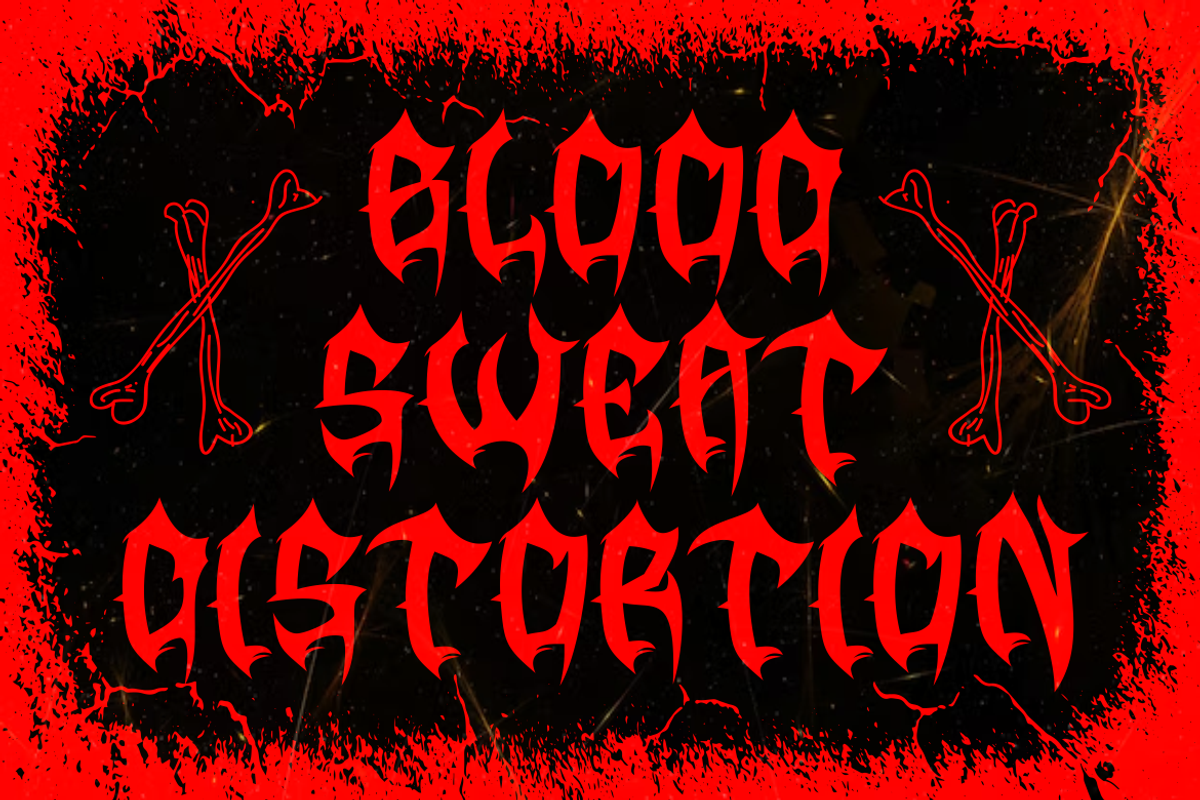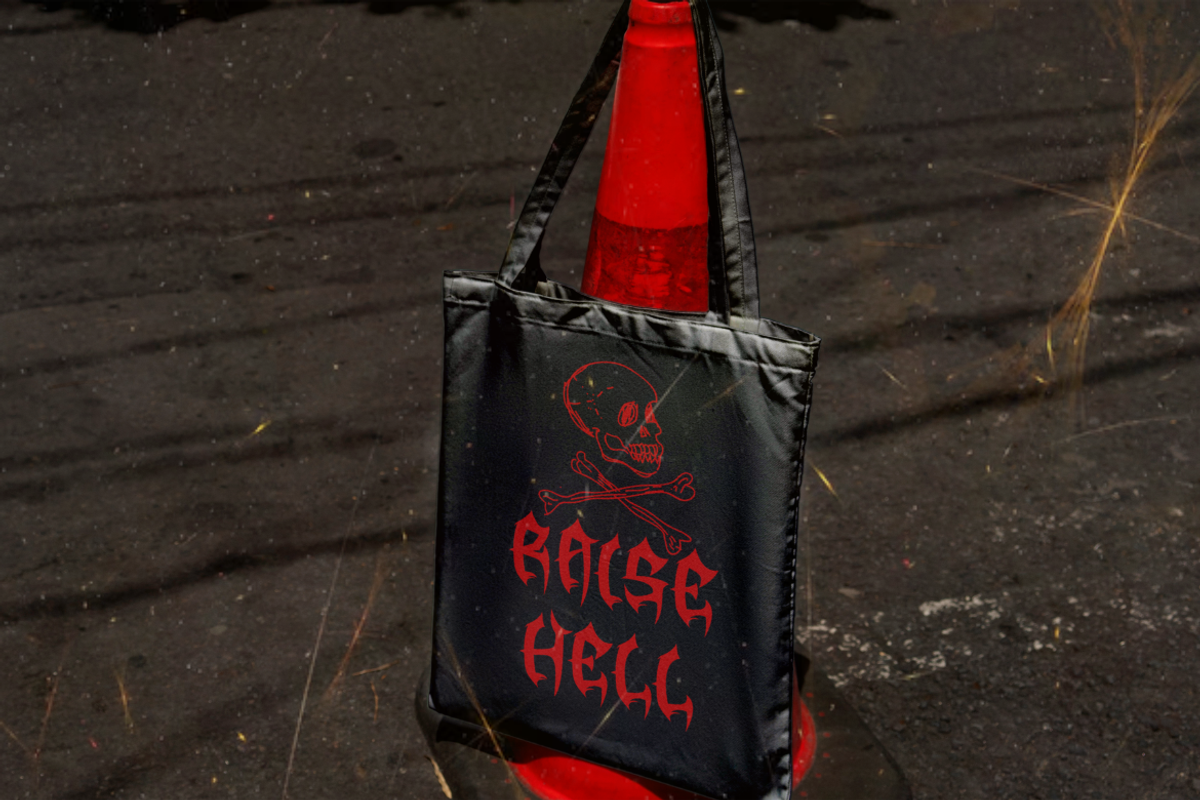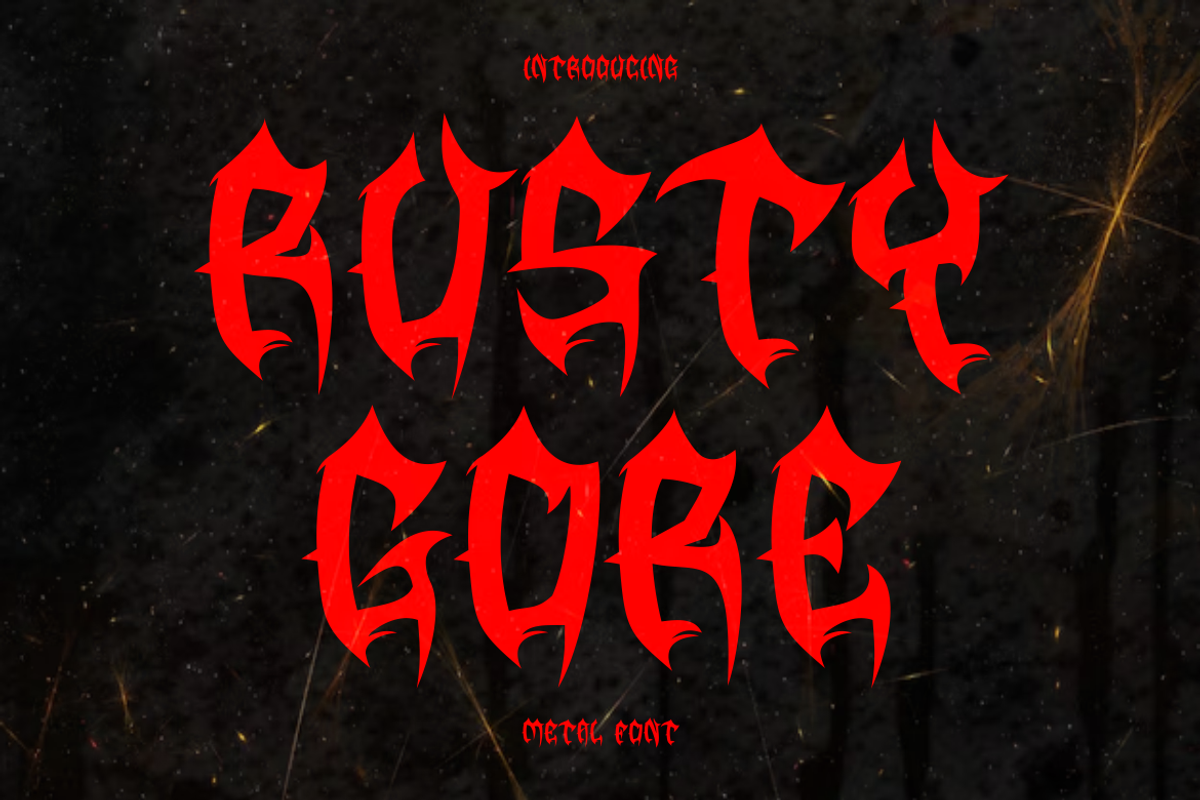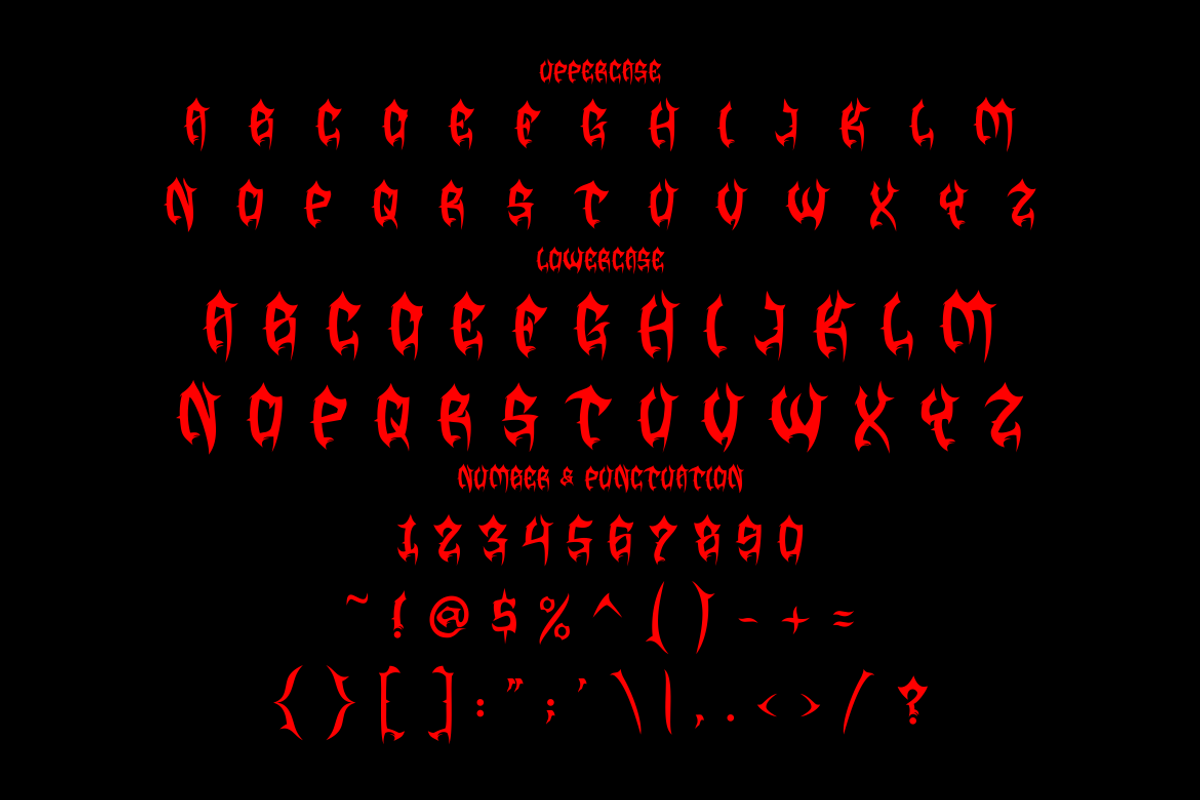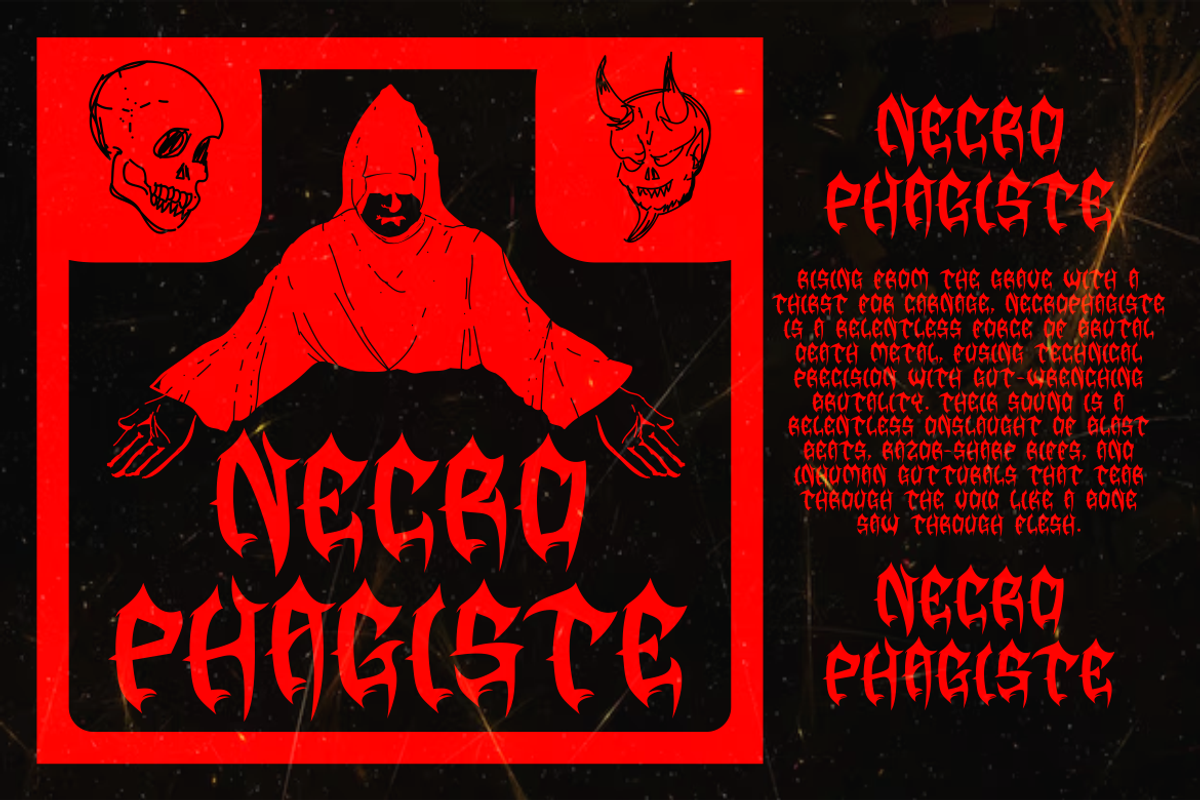
Rusty Gore - Metal Font
Unleash the power of Rusty Gore - Metal Font, a bold and aggressive typeface designed for heavy metal, death metal, and gothic-themed designs. This sharp, jagged, and spiked display font is inspired by the dark and rebellious energy of extreme metal culture. With its razor-edged letterforms and intense gothic-inspired curves, Rusty Gore brings a raw and chaotic vibe, perfect for band logos, album covers, horror posters, and underground branding. The striking blood-red text against a gritty black background enhances its sinister aura, making it an ideal choice for those who want a font that screams intensity and power. If you need a brutal, hardcore, and gothic-styled font, Rusty Gore is your go-to typeface for creating an unforgettable impact.
This high-impact display font is perfect for merchandise, music festivals, branding, horror movie titles, game designs, tattoo-themed projects, and extreme sports branding. Whether you're crafting a dark-themed poster, a heavy metal gig flyer, or an intense logo, Rusty Gore delivers an aggressive and fearsome aesthetic that stands out. With its intimidating, battle-worn, and medieval-inspired letter structure, this font is crafted to embody chaos, power, and rebellion. If you're looking for a high-energy, gothic-styled, and visually striking font that fits the black metal and horror aesthetic, Rusty Gore is the ultimate typography choice.